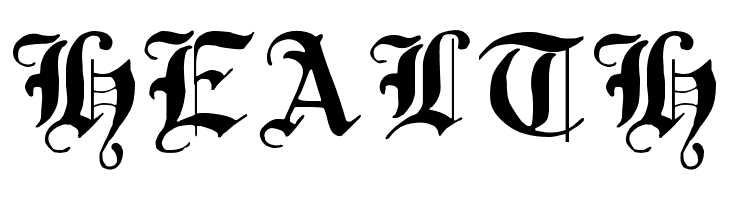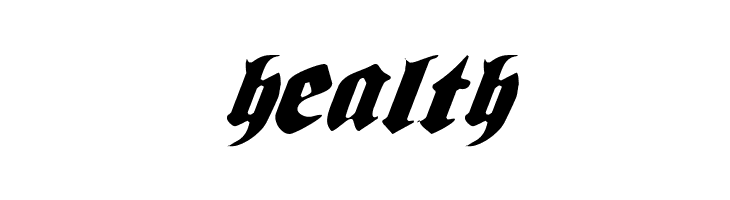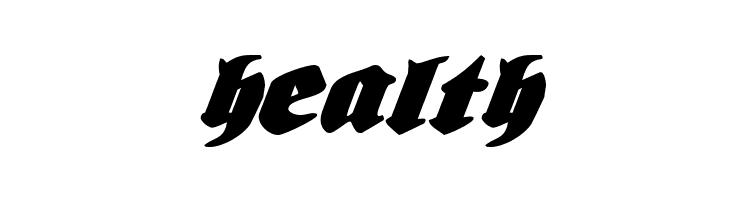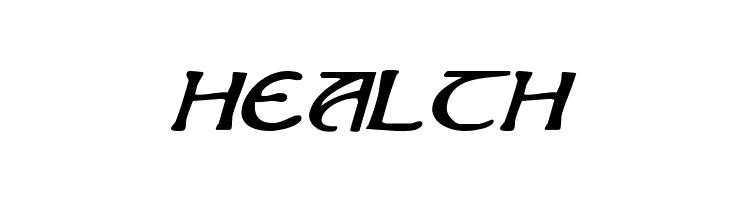
A bold, gothic-inspired font with sharp serifs and high contrast strokes.
A bold, italic Blackletter-style font with sharp, angular edges and high contrast.
A bold, italicized font with high contrast and decorative, angular features.
A bold, ornate Blackletter font with high contrast and intricate details.
A bold, Gothic-inspired font with strong serifs and high contrast strokes.
A classic Blackletter font with ornate, angular strokes and high contrast.
A dynamic, expanded italic font with smooth strokes and moderate contrast.